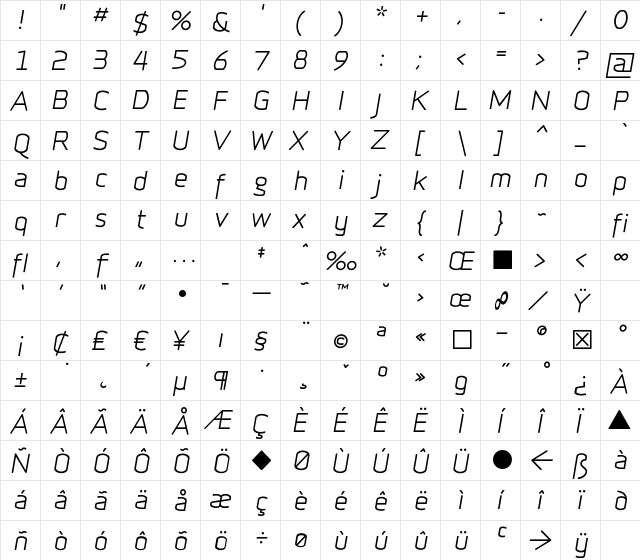
Infinity-T-MI Regular
Design Context for Infinity-T-MI Typeface
Infinity-T-MI takes a measured approach to typography — its balanced proportions and neutral character make it a reliable workhorse for both digital and print work.
Pro Tip: Use Infinity-T-MI in both headline and body roles to test its range before committing to a single application.